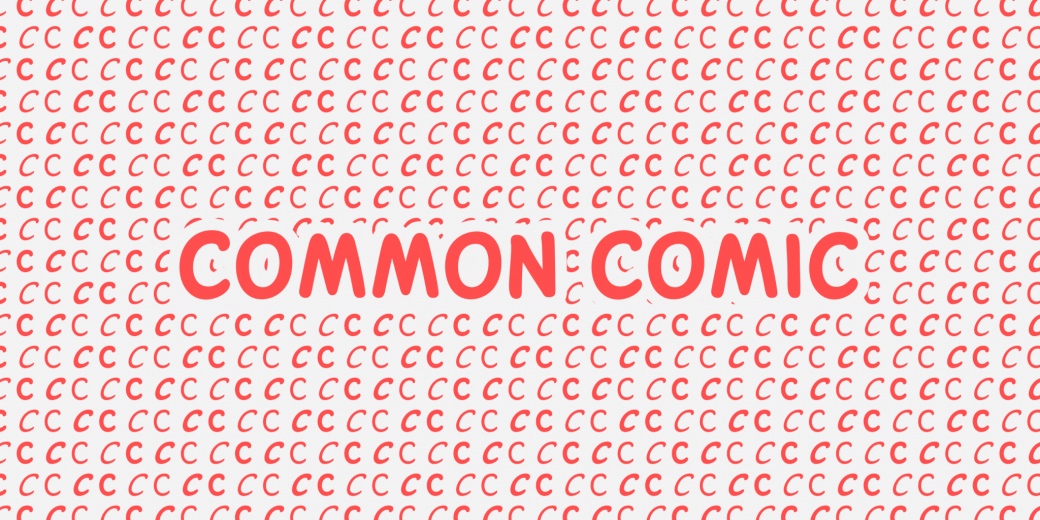
Common Comic Font
Common Comic Font is perfect for comic book publications, cartoon character branding, children's educational materials, playful web design, casual gaming interfaces, fun social media graphics, creative workshop materials, entertainment industry projects, and whimsical illustration work.
What makes Common Comic Font exciting is its authentic comic book character that brings the dynamic energy and visual storytelling of graphic novels directly into everyday design through perfectly crafted letterforms. The font features bold, expressive shapes with characteristic comic styling that instantly evokes the excitement and adventure found in superhero stories and graphic narratives. Its carefully designed proportions and comic-inspired details make it perfect for brands that want to communicate fun, creativity, and the timeless appeal of comic book culture while maintaining excellent readability across all applications.
Common Comic Font family includes various comic-inspired weights such as Regular, Bold, and possibly outlined versions, often featuring superhero-style alternates and comic book decorative elements. The family may include speech bubble symbols, comic action words, and graphic novel ornaments that enhance the font's authentic comic aesthetic, providing designers with comprehensive options for creating engaging typographic compositions that capture the essence of comic book storytelling.
This dynamic typeface has gained popularity among entertainment brands and creative professionals seeking authentic comic book typography solutions. Common Comic Font Free Download provides an excellent opportunity to experience this comic-inspired font before investment. The font's character set includes comic symbols and graphic novel glyphs that work perfectly for entertainment and gaming industry applications. Whether you're designing for comic publishers, gaming companies, or children's entertainment brands, Common Comic Font delivers the superhero energy your project needs. Its versatile nature makes it suitable for various creative applications including animated productions, toy packaging, educational games, and pop culture merchandise, ensuring your typography choices communicate the excitement and imagination that define comic book culture while creating memorable brand experiences that celebrate the heroic spirit and creative storytelling through its distinctively bold and authentically comic-inspired visual character.